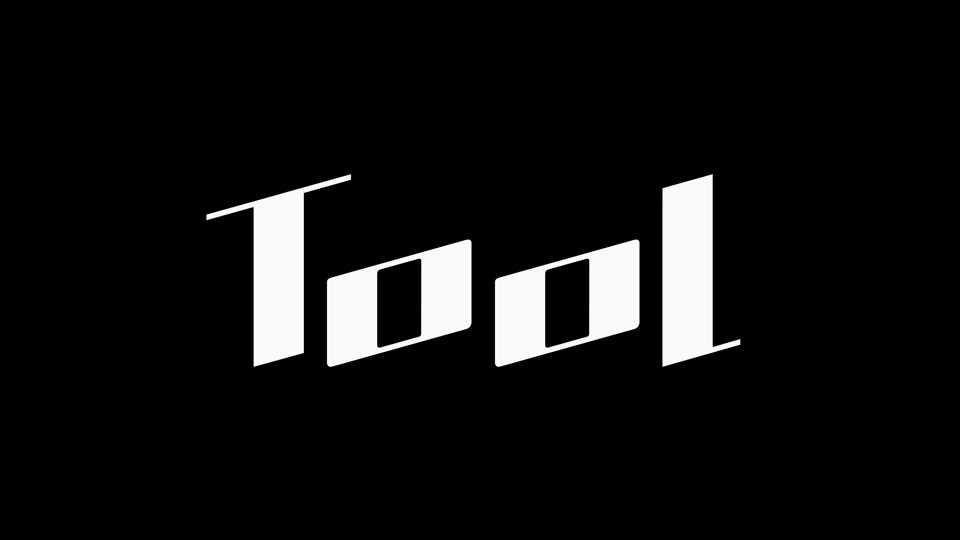
Download Tool font, a high contrast display typeface inspired by a hand-made tool. At the same time, its width of strokes gives the text fullness, but also freedom.
Designer: Jakub Peřinka